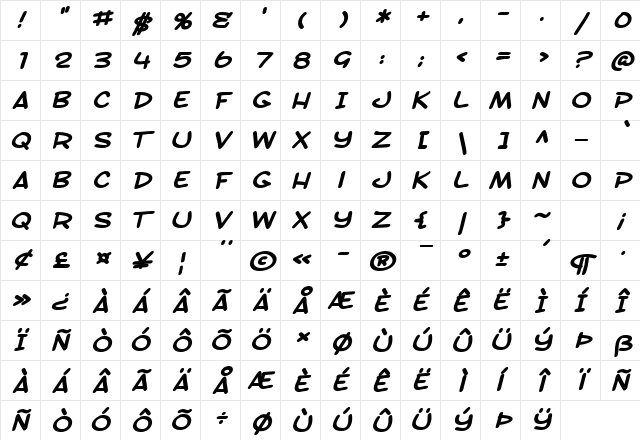
SF Toontime Extended Bold Italic Free Font
SF Toontime Extended Bold Italic
Designer: ShyFonts Type Foundry
Design Context for SF Toontime Extended
SF Toontime Extended is a composed and adaptable typeface that performs quietly and consistently across a wide range of design contexts. The slanted form adds forward momentum and visual energy. Its bold stroke weight gives it real presence on the page.